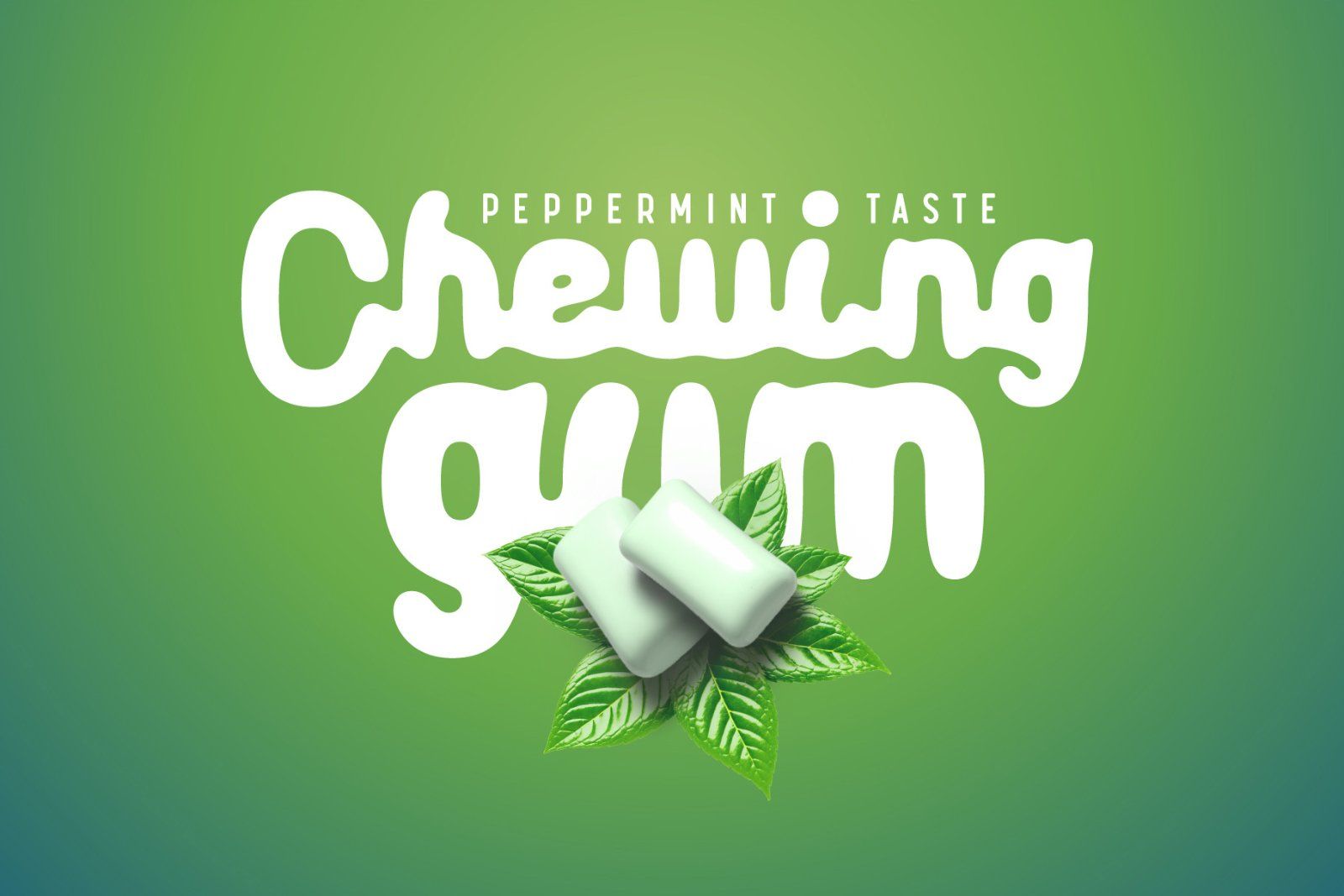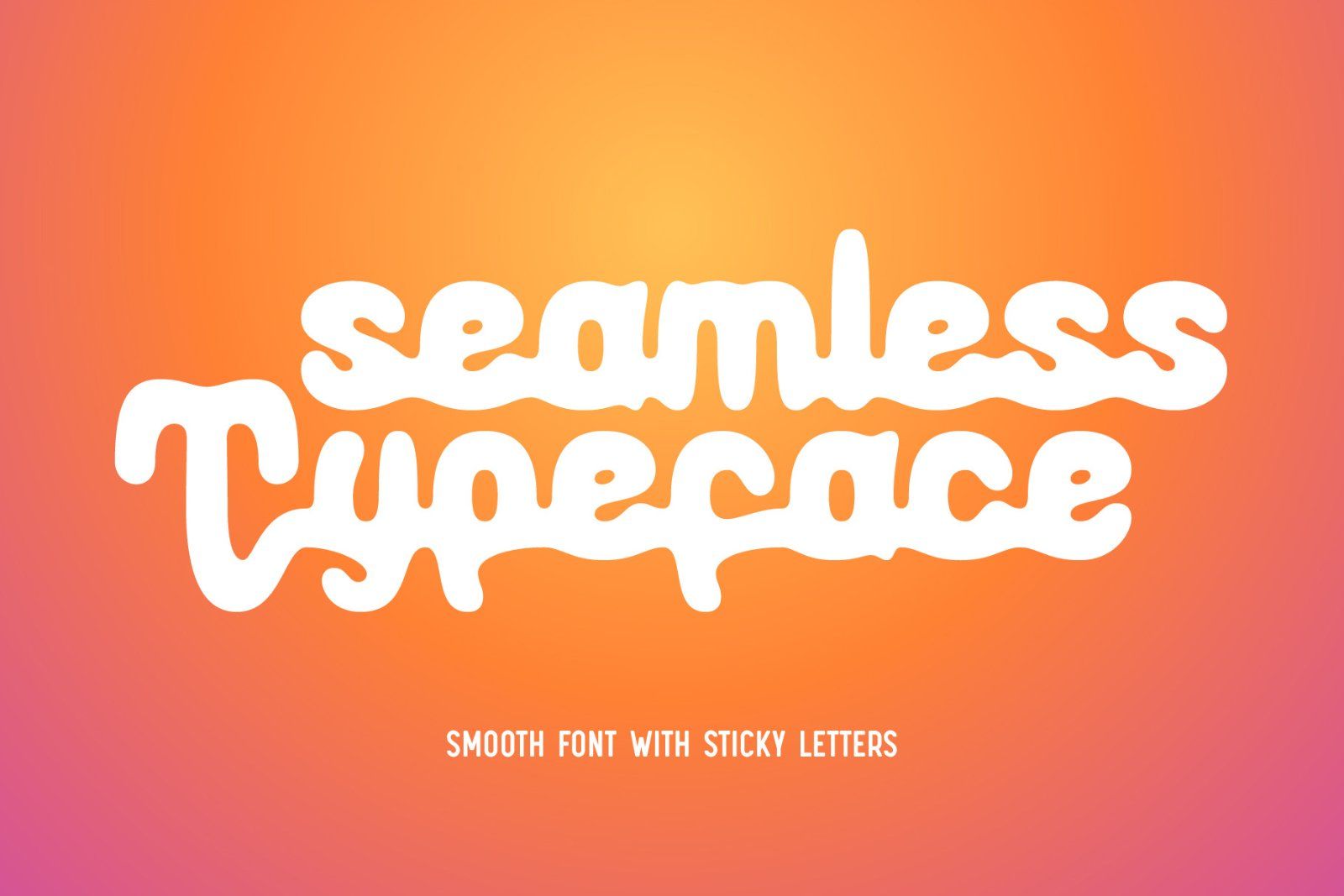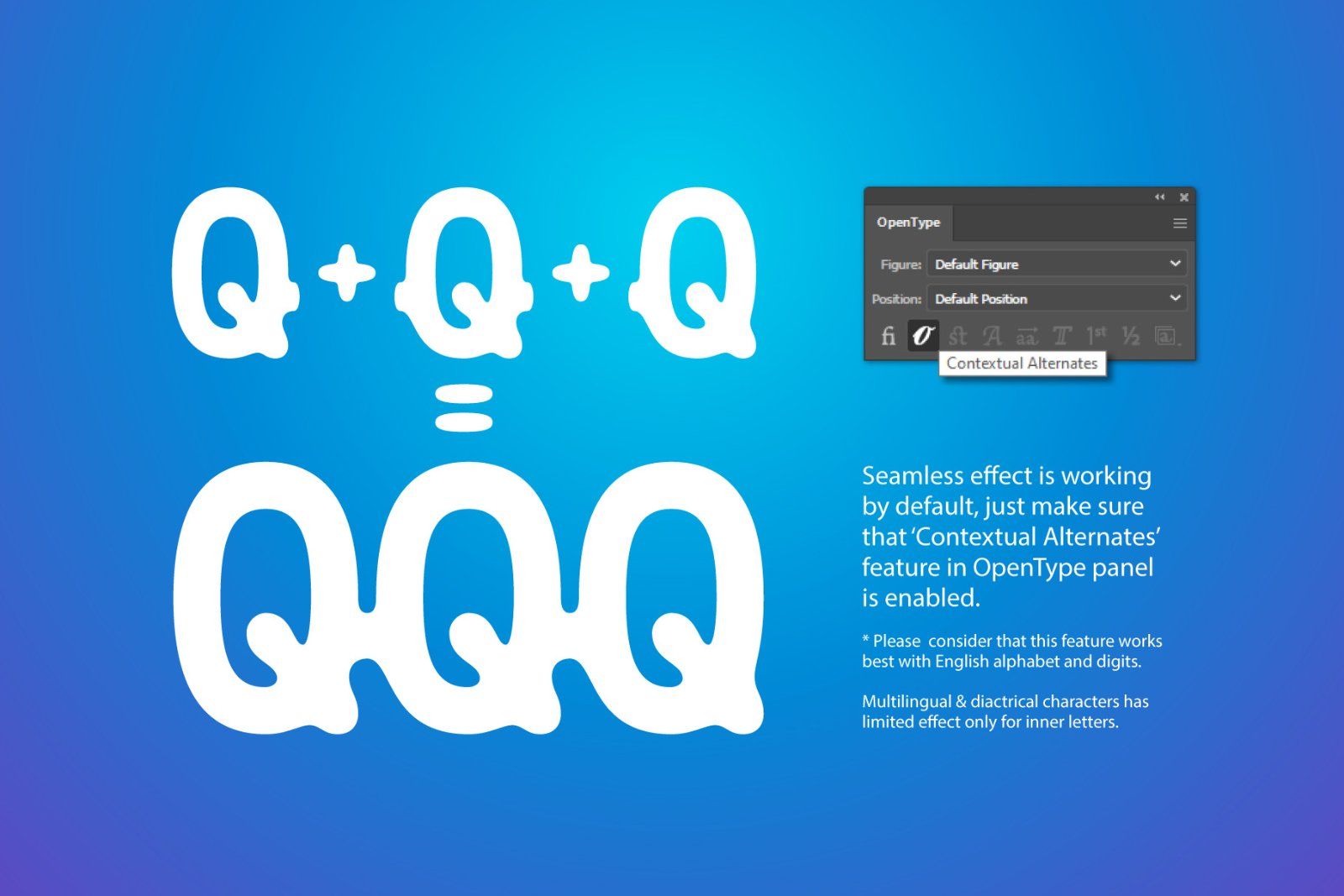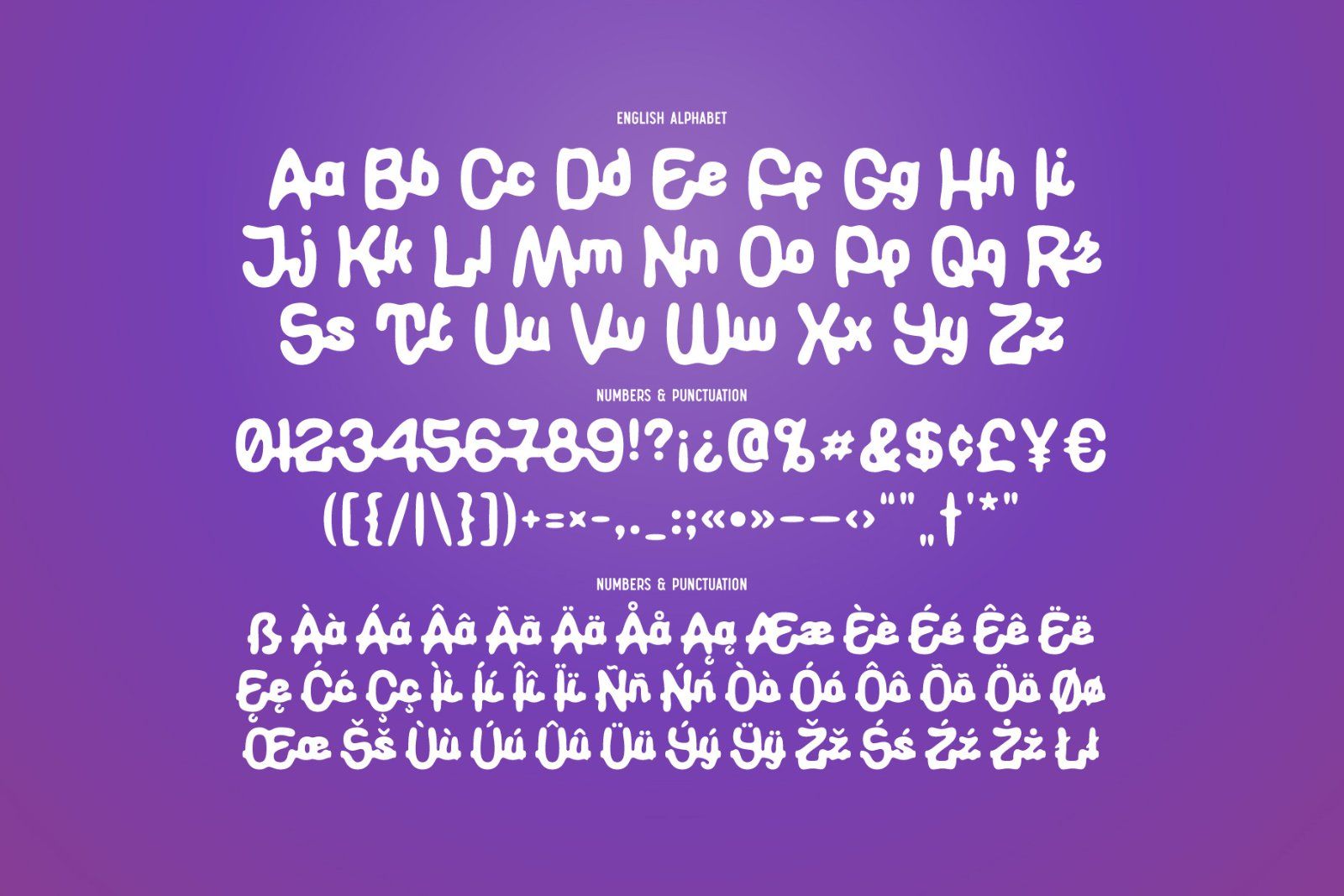
Hello! Introducing a decorative font — Qimzy. It's a smooth shape bold typeface with seamless sticky effect. This font includes lots of multilingual characters (check out a screenshot with available letters and signs).